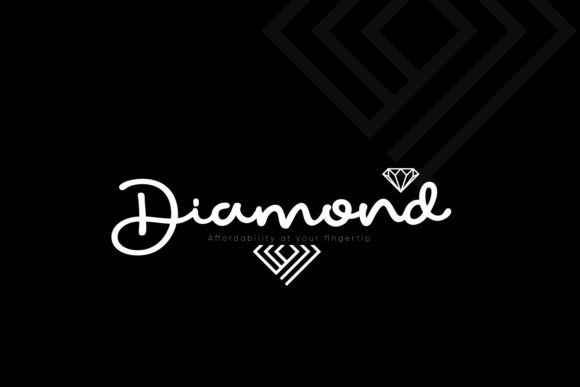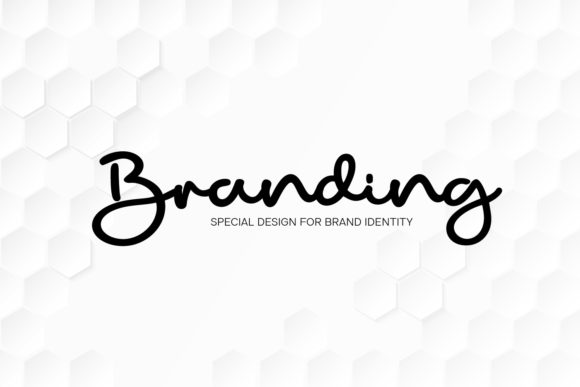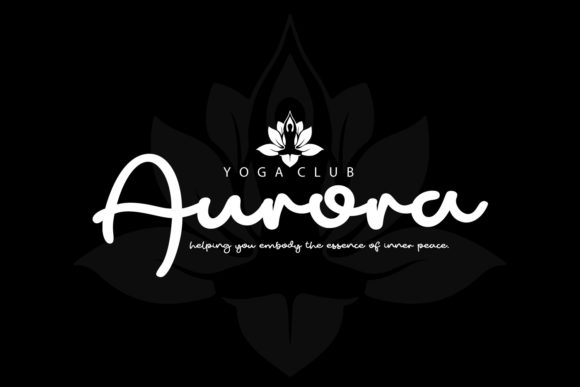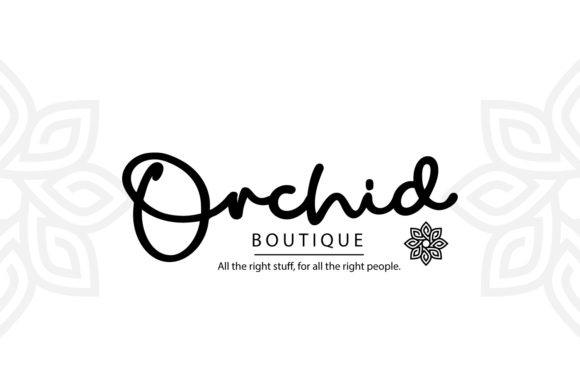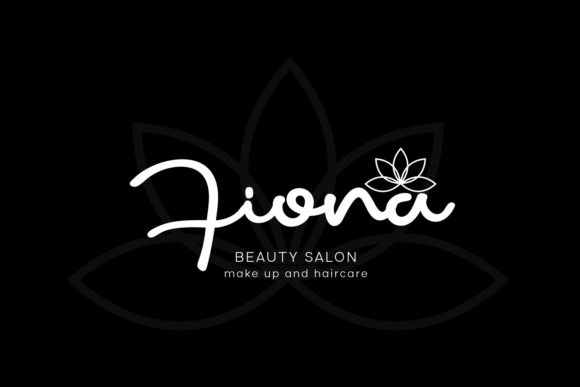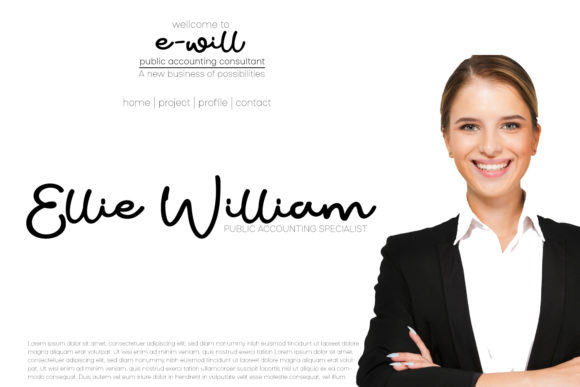
Introduction to Pureline Font
Pureline is a modern signature font, full of life and charm.
Get inspired by its unique style and create outstanding designs .
Key Features of Pureline Font
Why Choose Pureline Font?
Pureline Font offers exceptional quality and versatility, making it a valuable addition to your design toolkit. Whether you’re creating for personal projects or commercial use, Pureline Font delivers professional results.